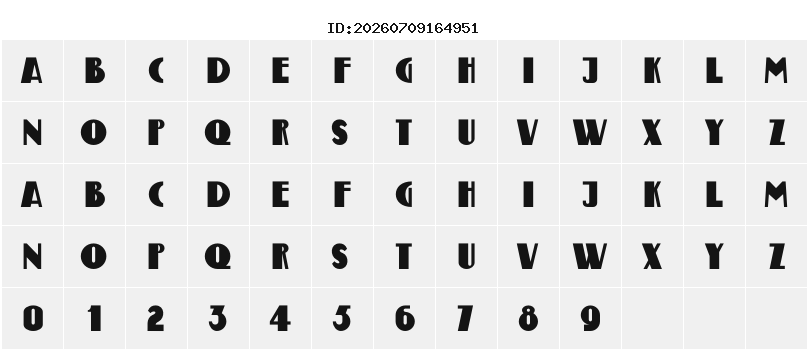
• Font Name: DK Bungehuis
• Designer: David Kerkhoff
About DK Bungehuis.otf
DK Bungehuis.otf is a modern, elegant sans-serif font designed for ultimate readability and visual harmony. Perfect for branding, headlines, web design, and print materials.